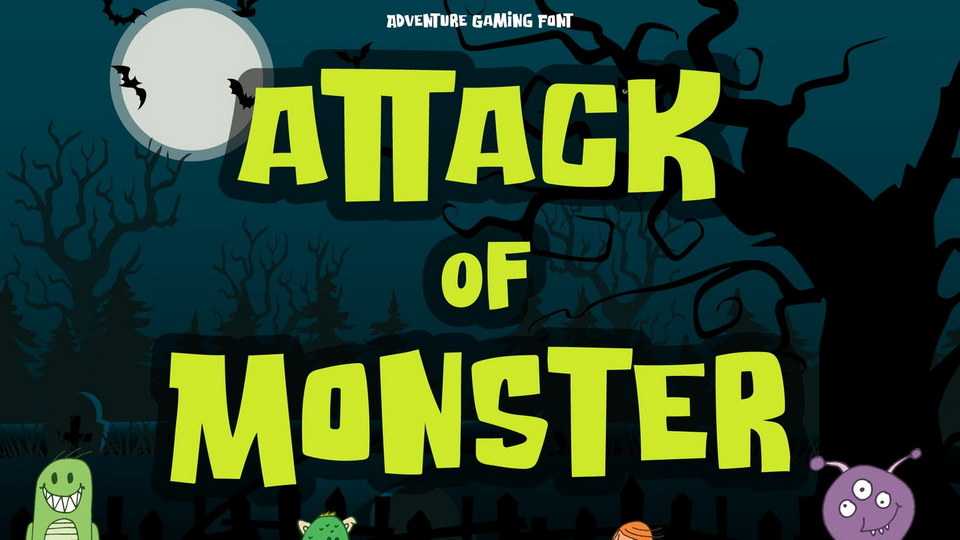
Download Attack of Monster font, a horror gaming typeface, that will create an adventure vibe while keeping at a tense. Attack of Monster suits perfectly for online games, posters, movie titles, fast food menus, magazines, YouTube covers, youtube thumbnails, social media page covers and so on…